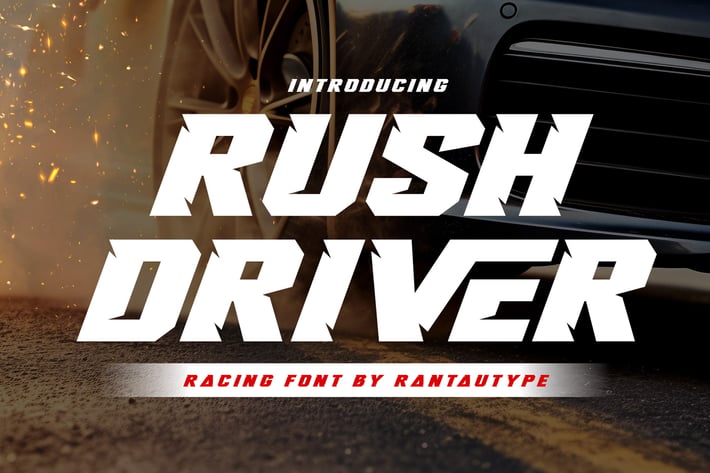
Rush Driver Racing Font
Experience racing in a visual form for your design with the RushDriver font. Inspired by the fast car brand with slash in each character , targeting the fast forward mentality with a bold shape to make the statement louder and faster than ever. RushDriver come with alternate, ligature and mulilingual support.
Perfectly suitable for any creative endeavor, sports brand, logo, esports, games, posters, film/movie, car brands, automotive events, advertising, motorcycles, digital futuristic concept and more.